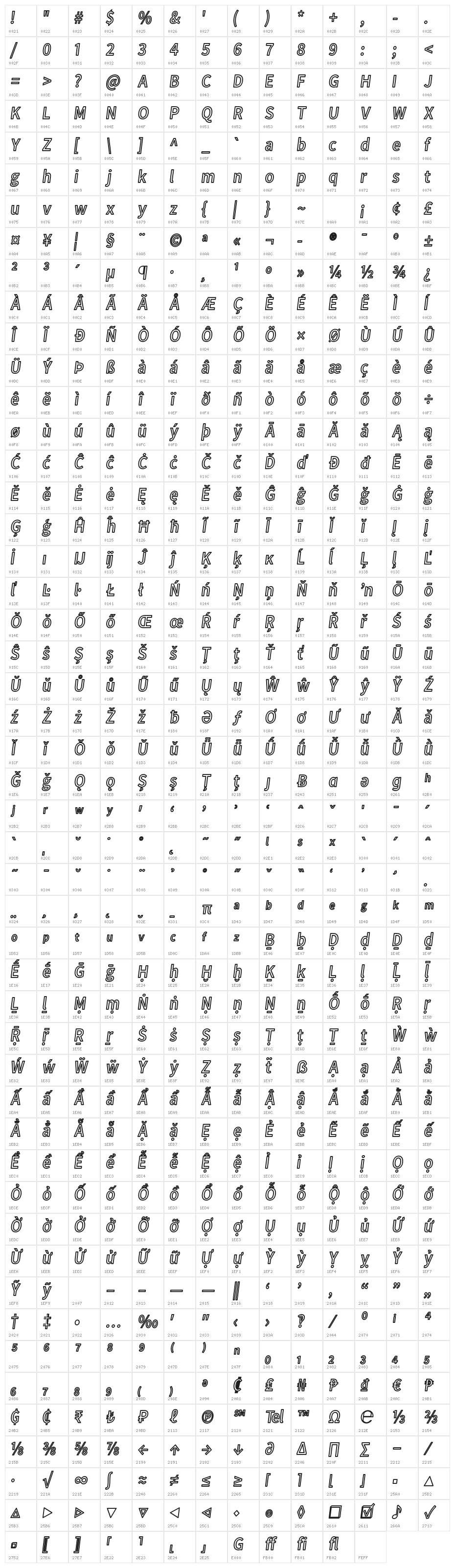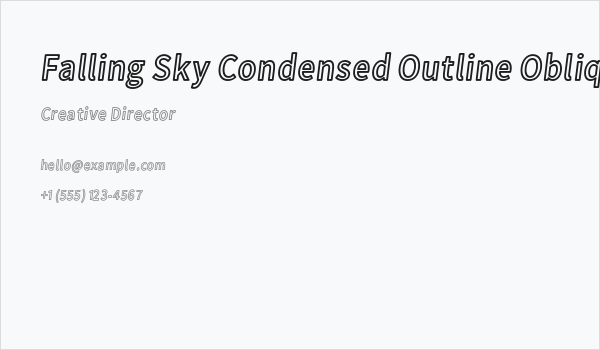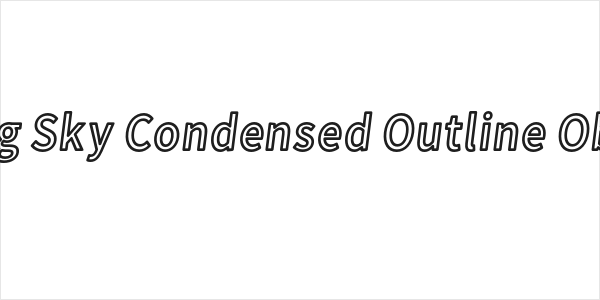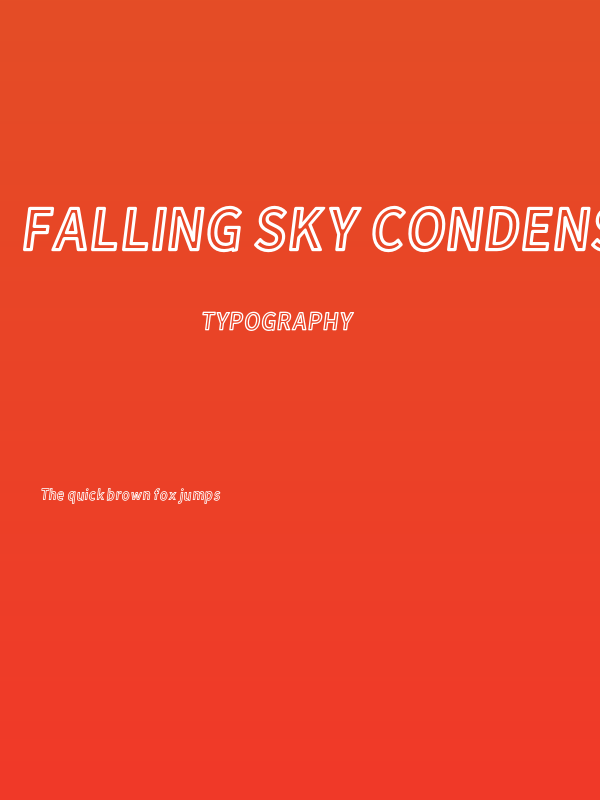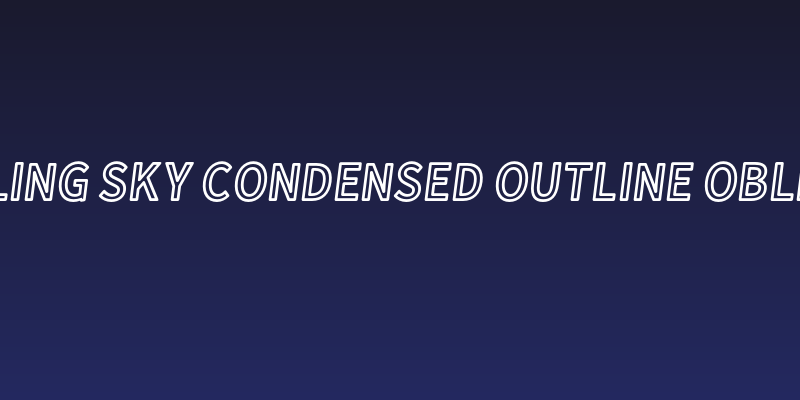
Falling Sky Condensed Outline Oblique Font
Falling Sky Condensed Outline Oblique Description
This font features a modern, condensed outline style with an oblique slant, giving it a dynamic and contemporary appearance. The uppercase and lowercase letters are designed with a consistent stroke width, creating a uniform look across all characters. The numerals and special characters maintain the same outline effect, ensuring cohesion throughout the typeface. The font's outline nature makes it stand out, while the oblique angle adds a sense of movement and energy. It's suitable for projects that require a bold statement without overwhelming the viewer, offering a unique blend of readability and style.
| Proposed Projects | Ideal for headlines, posters, branding, and any design needing a striking, modern touch. |